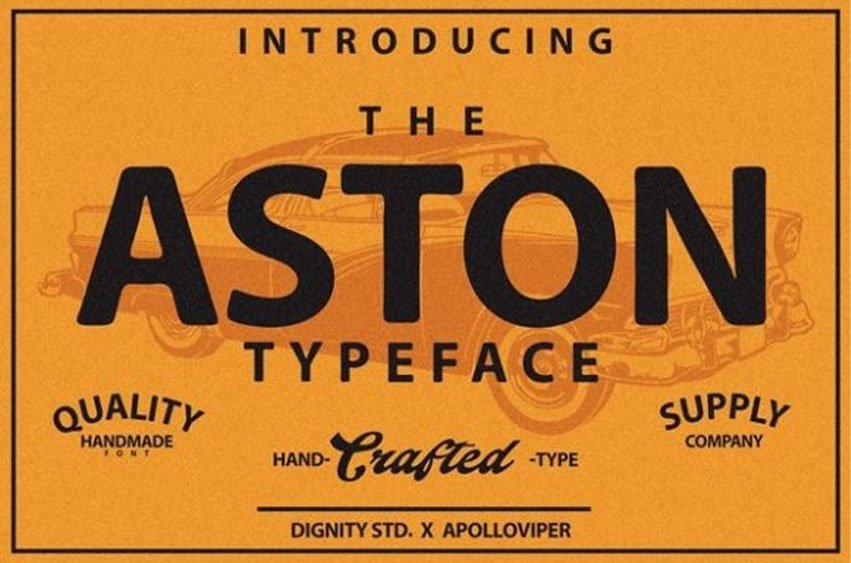
Aston Font
Aston Font is a simple, bold and neat lettered display font.
Add this font to your creative ideas and notice how it will make them stand out!